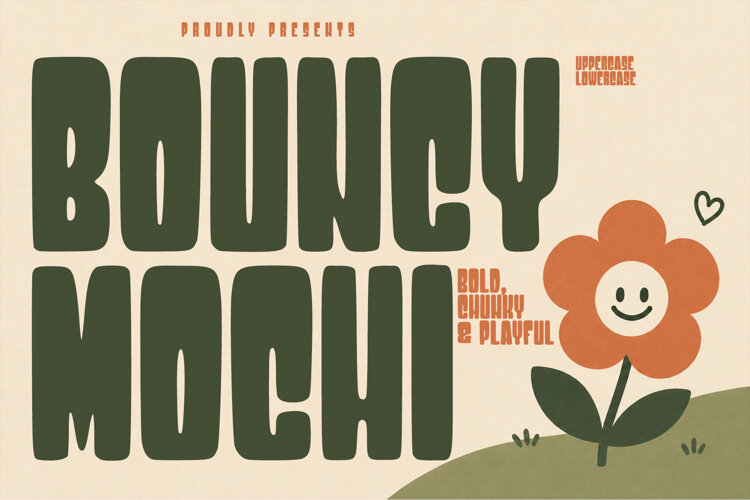
Bouncy Mochi
BOUNCY MOCHI
Bouncy Mochi is a bold, chunky, and playful display font designed with soft, rounded letterforms and a fun retro-inspired character. The wide proportions, smooth curves, and heavy shapes create a strong visual presence while keeping the overall appearance friendly, cheerful, and approachable.
Its distinctive chunky construction makes Bouncy Mochi especially effective for large headlines and eye-catching typography. The rounded forms give the letters a soft and bouncy appearance, while the bold weight ensures excellent visibility across different design applications.
The font works particularly well when used at larger sizes, where its thick shapes and rounded details can become a strong visual element within a composition. Combine it with illustrations, simple graphics, colorful backgrounds, or retro-inspired layouts to create a cheerful and memorable design.